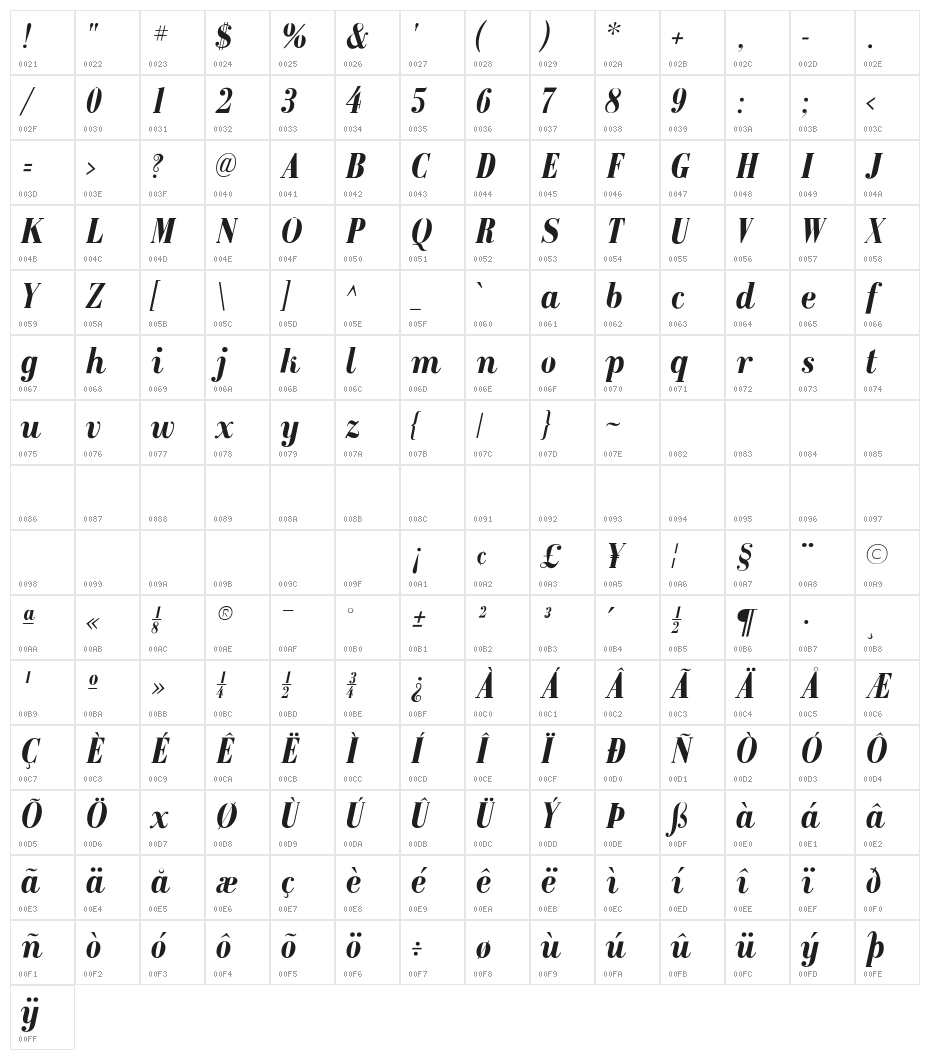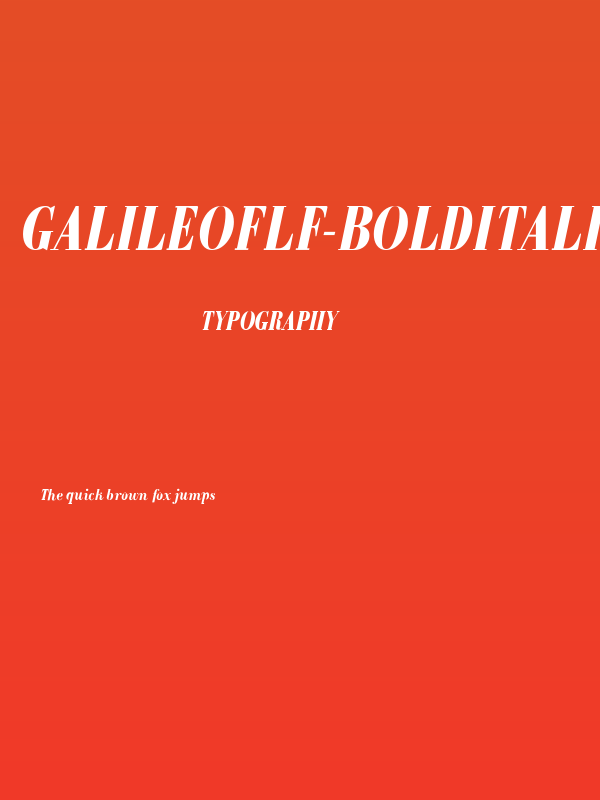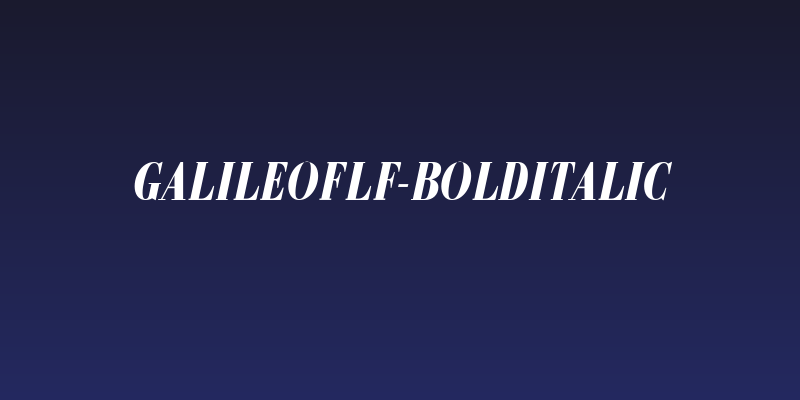
GalileoFLF-BoldItalic Font
GalileoFLF-BoldItalic Description
This font exhibits a bold and italicized style, characterized by its strong presence and elegant curves. The uppercase letters are tall and commanding, while the lowercase letters maintain a consistent flow with a slight slant, enhancing readability. The numerals are well-proportioned, matching the overall aesthetic of the alphabet. Special characters are designed with the same attention to detail, ensuring a cohesive look across all glyphs. The font's bold weight and italic slant make it suitable for impactful headlines and titles, while its classic serif elements add a touch of sophistication.
| Proposed Projects | Ideal for editorial design, book covers, luxury branding, and formal invitations. |